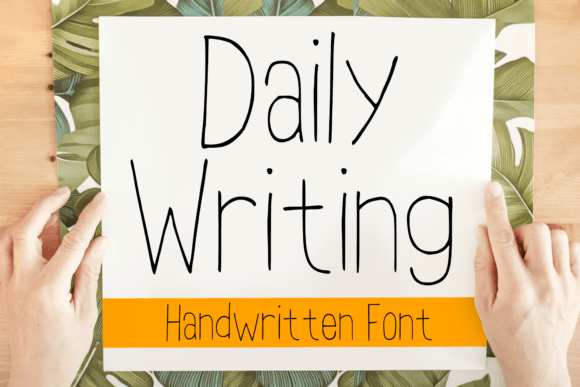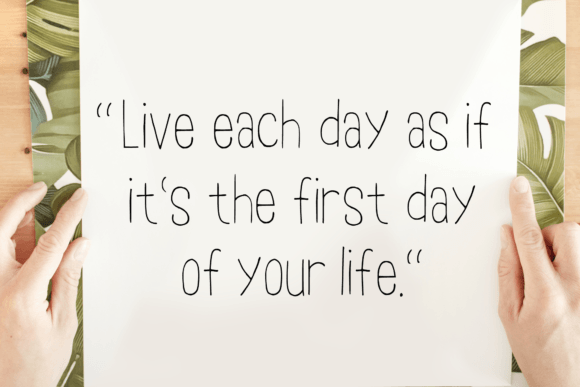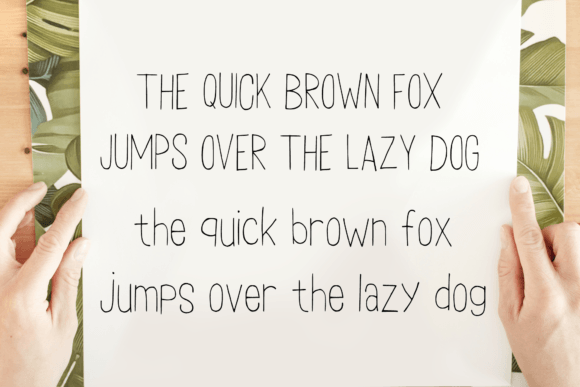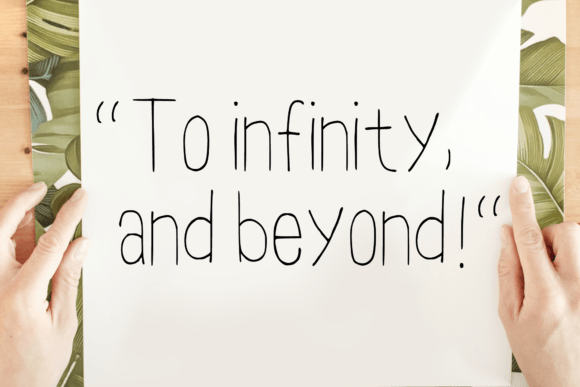
Daily Writing Font
About Daily Writing Font
Daily Writing is your new go-to font for adding a personal, handwritten touch to any project. With its warm and approachable look, this font feels like a friendly note written by hand. It’s perfect for designs that need a casual, authentic vibe.
Effortless Handwritten Style
Daily Writing has soft curves and natural strokes that mimic real handwriting. Each letter flows smoothly, giving your text a relaxed feel. This makes it ideal for projects where you want to appear genuine and relatable.
Use Daily Writing to bring warmth to your messages. It feels inviting and personal without sacrificing clarity.
Perfect for Many Creative Uses
One of the best things about Daily Writing is how versatile it is. Here are just a few ways you can use this charming font:
• T-Shirts: Design playful quotes and sayings that look handwritten.
• Kids’ Books: Add friendly titles, labels, or captions to make stories come alive.
• Greeting Cards: Make birthday cards, thank-you notes, or seasonal greetings feel extra special.
• Stickers: Create cute, handwritten stickers for planners, scrapbooks, and packaging.
• Posters: Design casual posters for classrooms, events, or home décor.
• Social Media: Pair Daily Writing with photos or illustrations to create relatable posts.
No matter the medium, this font adds an inviting and warm touch.
Easy to Use in Any Project
The font scales beautifully. Use it large for headlines or small for detailed notes, and it will stay clean and readable. Adjust spacing and colors to match your style effortlessly.
Tips for Stunning Designs
To get the best results with Daily Writing, try these design tips:
• Pair it with bold sans-serifs: This combo balances casual handwriting with clean modern text.
• Use soft colors: Pastels and neutrals highlight the friendly feel.
• Add doodles: Little hand-drawn icons or accents enhance the handwritten vibe.
• Keep it airy: Use generous spacing so letters feel open and natural.
Small details can make your designs feel more cohesive and visually appealing.
Ideal for Personal and Professional Use
Daily Writing is perfect for a wide range of projects. Whether you’re creating something for a client, your business, or personal use, this font delivers a timeless handwritten feel.
Use it to make products, presentations, or social content more approachable and memorable. When you want a style that feels genuine, Daily Writing is the answer.